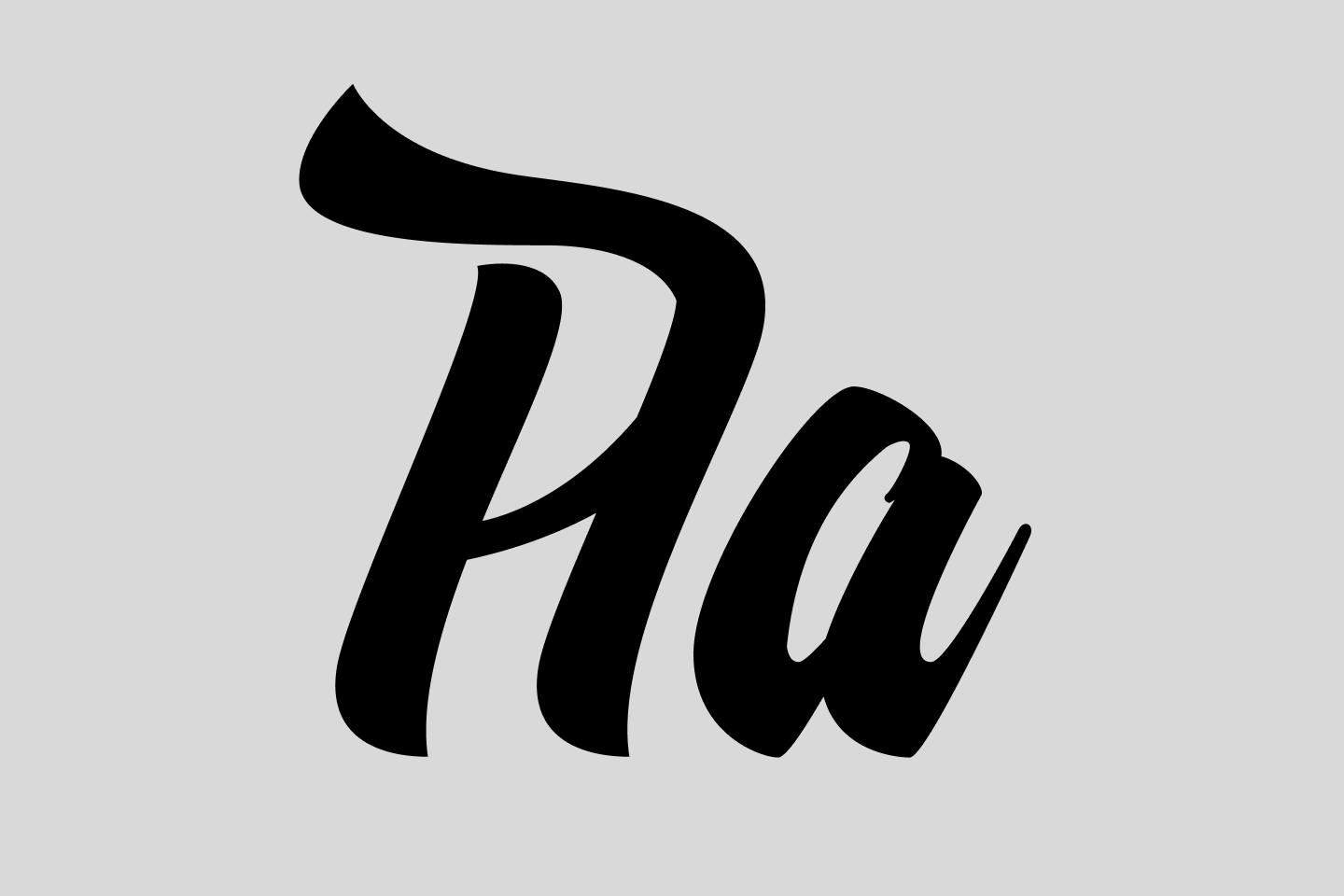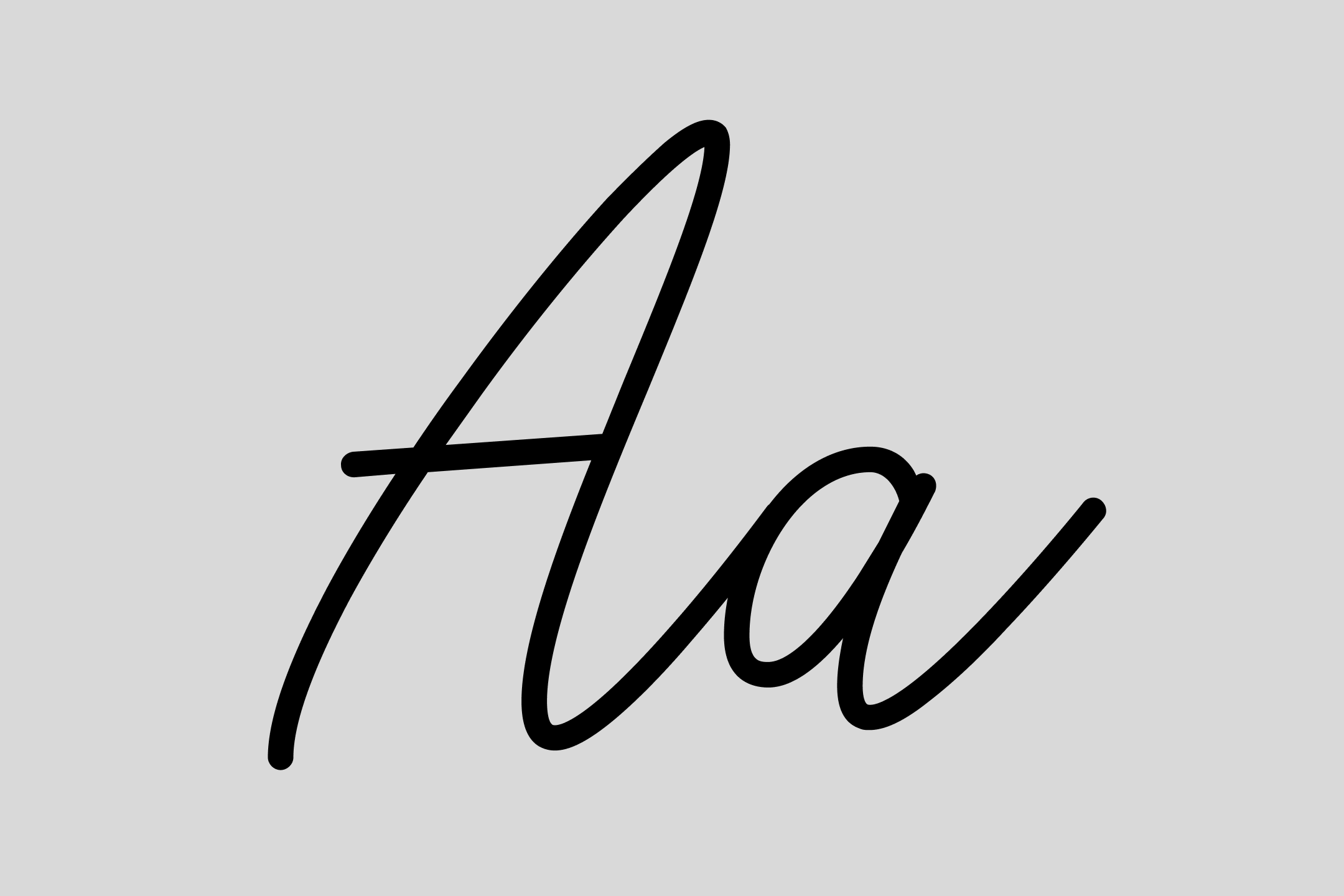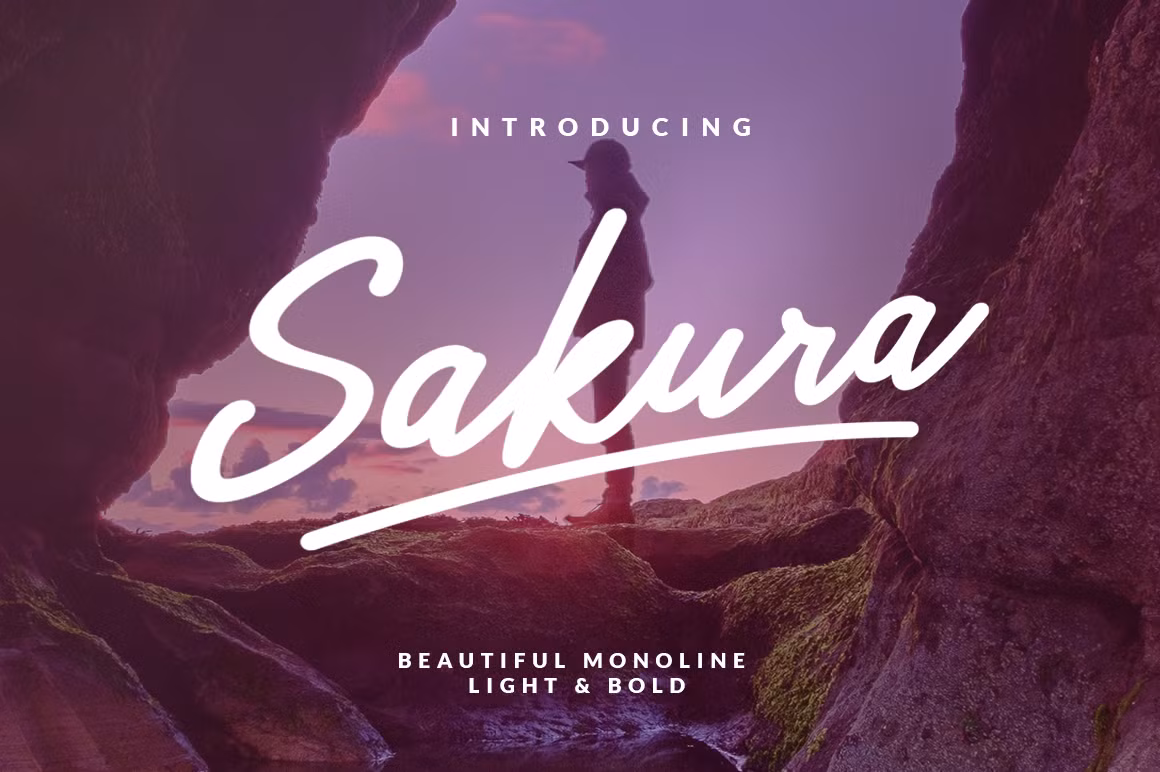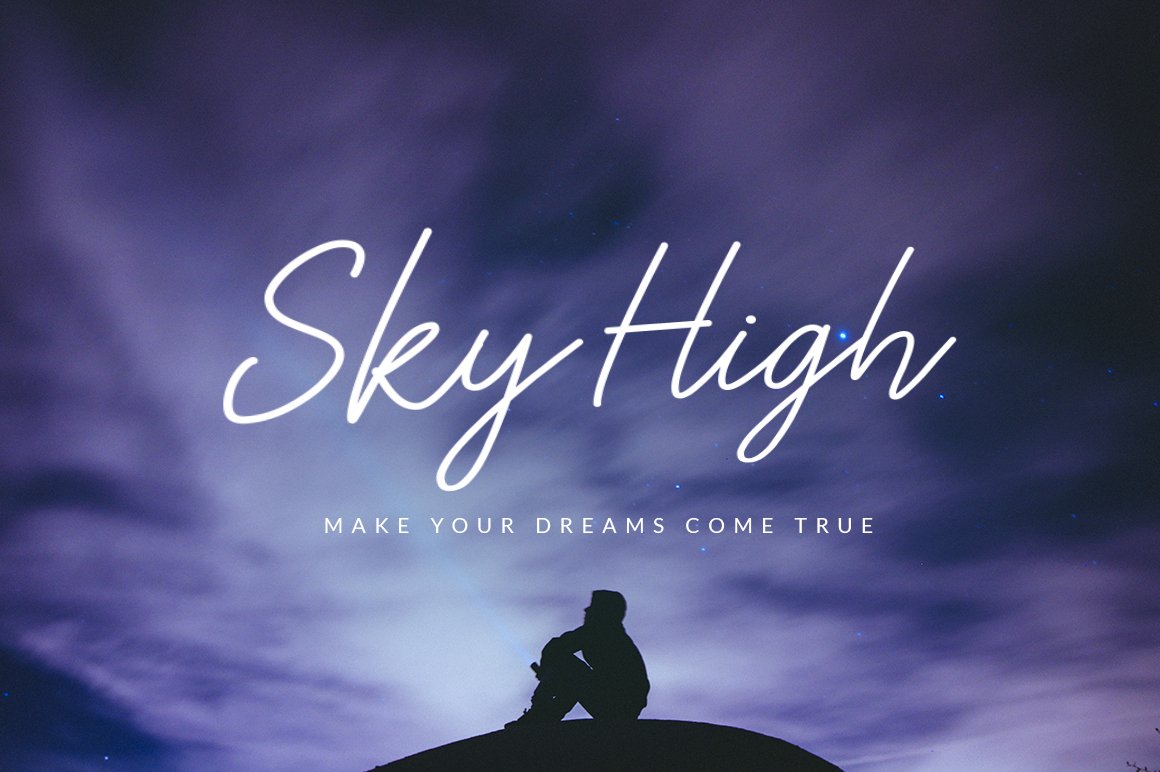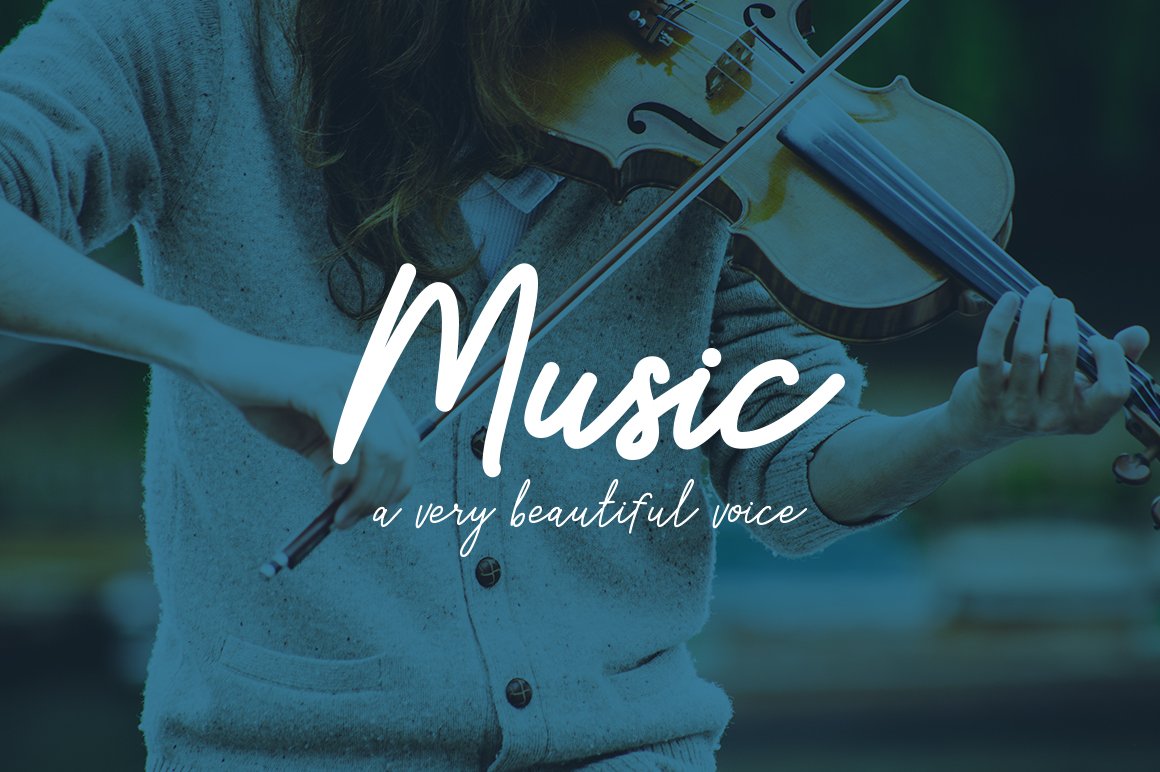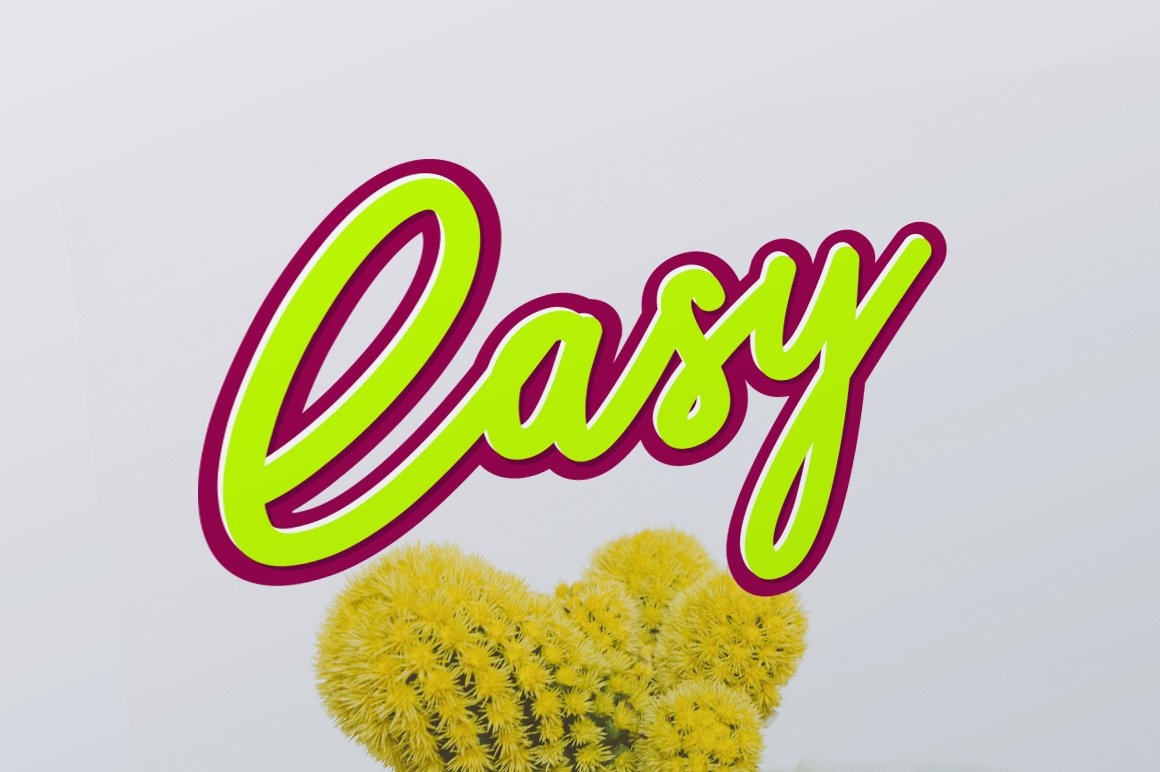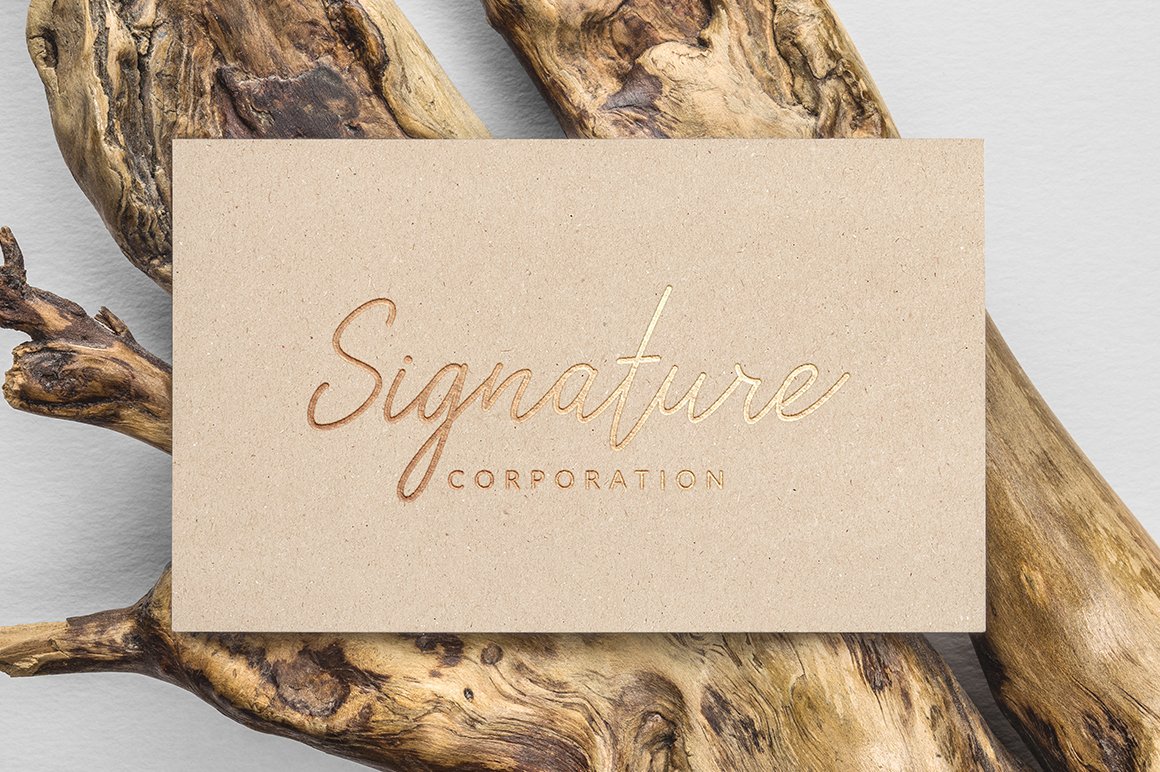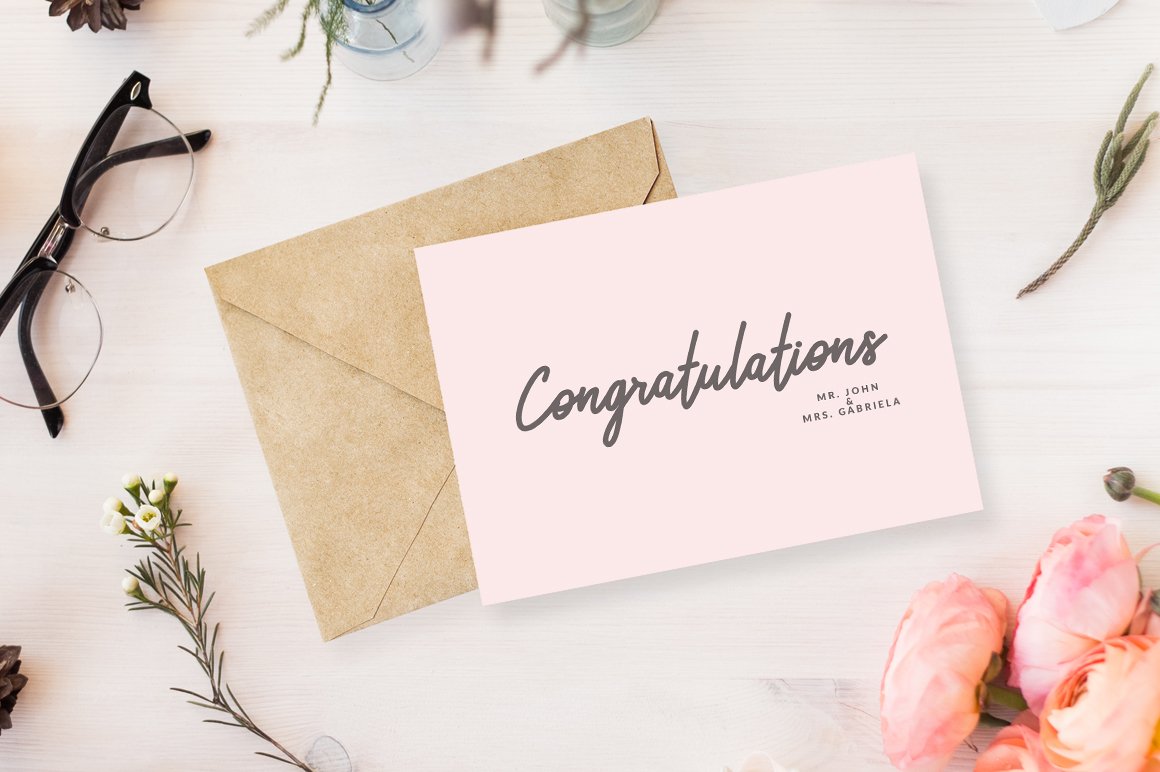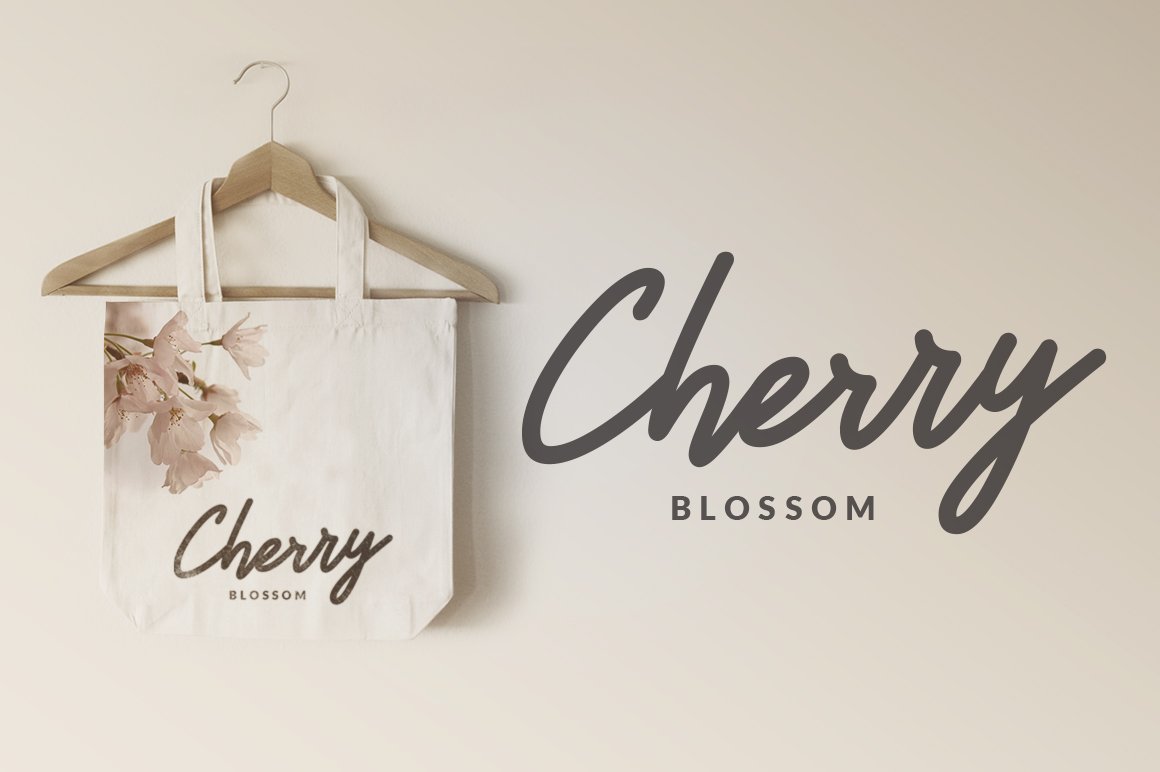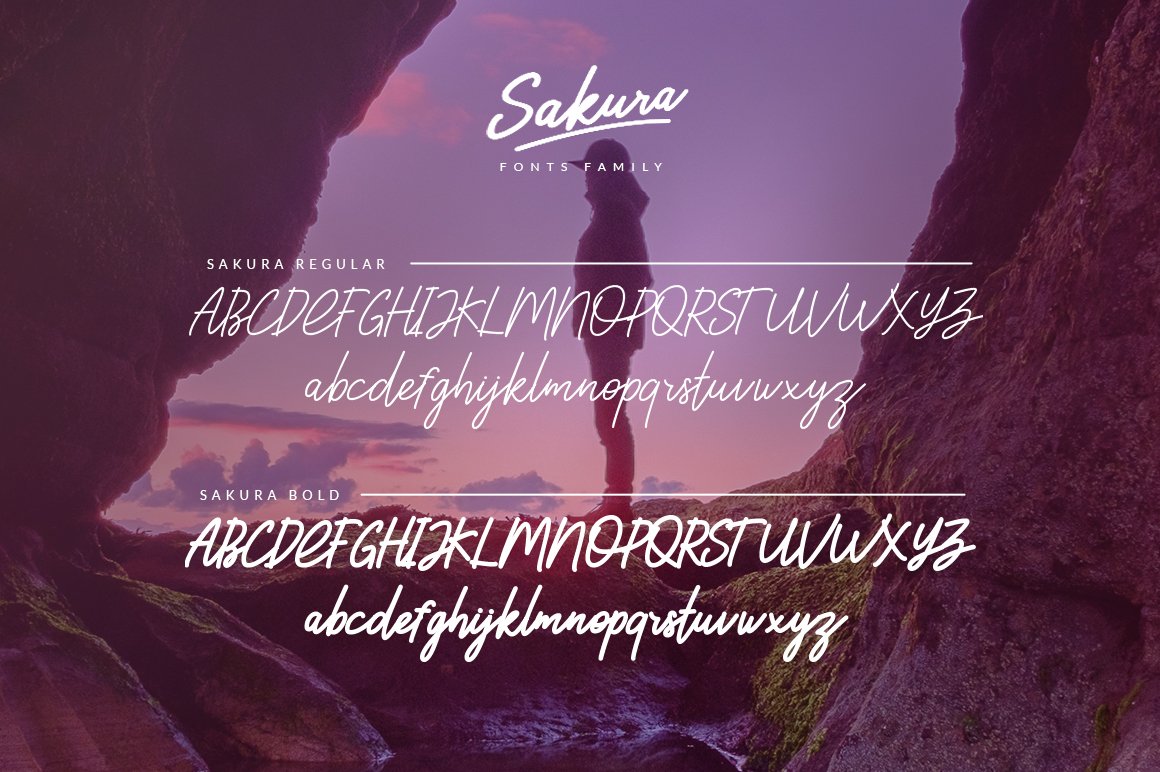
Sakura
Elegant signature font family for modern branding and timeless handwritten elegance.
Sakura brings a soft handwritten rhythm into elegant visual branding.
Sakura Font Family is a clean and classy signature-style typeface designed to create authentic hand-lettered typography quickly and effortlessly. Featuring exaggerated strokes and a naturally bouncy baseline, Sakura delivers a modern handwritten look with elegant personality.
Perfect for logos, branding, social media graphics, product packaging, invitations, headers, quotes, and editorial designs. The family includes multiple alternate styles and bold versions to give designers more flexibility while maintaining a consistent handwritten aesthetic.
• Uppercase & lowercase characters
• Numbers & punctuation
• Multilingual support
• PUA encoded characters
• Alternate characters and stylistic variations
Ideal for creators who want a stylish signature font with a natural and professional feel.